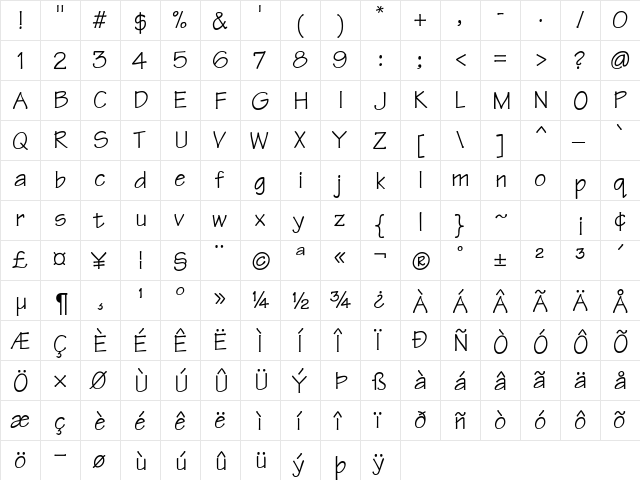
TriathlonDB Normal
Design Context for TriathlonDB Typeface
TriathlonDB is a composed and adaptable typeface that performs quietly and consistently across a wide range of design contexts.
Pro Tip: Pair TriathlonDB with a font of contrasting weight or personality to build a more expressive typographic hierarchy.